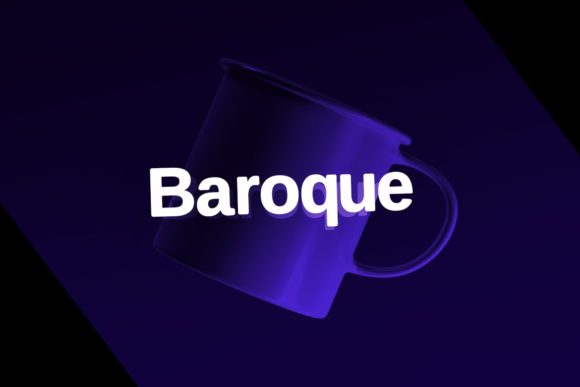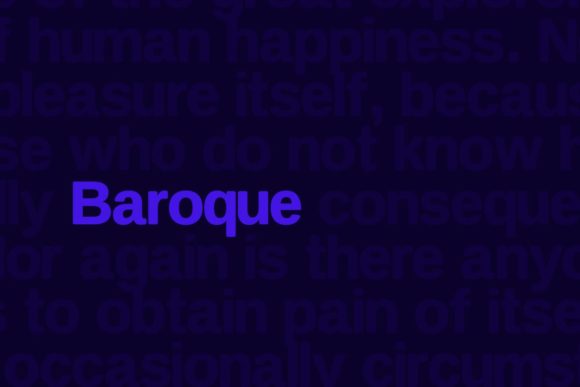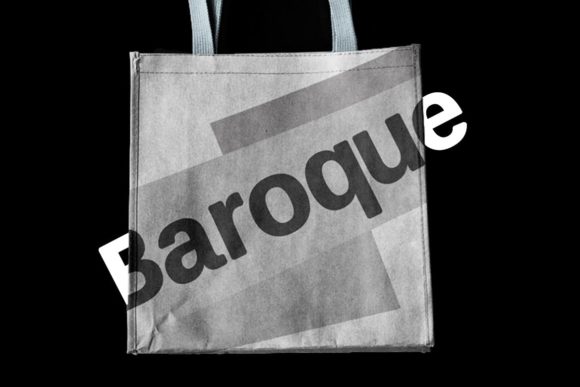
Discover the Modern Coolness of Baroque Font: A Versatile Sans Serif Typeface
In the world of typography, fonts play a crucial role in conveying messages, expressing emotions, and creating a lasting impression. For designers and crafters, selecting the right font can make all the difference in their projects. If you’re looking for a modern sans serif typeface that can elevate your designs, look no further than Baroque Font. In this article, we’ll explore the features, benefits, and inspiration behind Baroque Font, and how it can add a touch of contemporary coolness to your creations.
What is Baroque Font?
Baroque Font is a modern sans serif typeface designed to be versatile and adaptable to a wide range of designs. Its clean lines, simple shapes, and minimalist aesthetic make it an excellent choice for designers seeking a fresh and contemporary look. Baroque Font is perfect for projects that require a clear, readable, and stylish font, from digital media and branding to print materials and crafts.
Key Features of Baroque Font
So, what makes Baroque Font stand out from other sans serif typefaces? Here are some of its key features:
- Clean and Simple Design: Baroque Font boasts a clean and simple design, making it easy to read and understand.
- Versatile and Adaptable: Its modern sans serif design makes it suitable for a wide range of projects, from digital media to print materials.
- Contemporary Coolness: Baroque Font exudes a sense of modernity and coolness, perfect for designs that require a fresh and youthful look.
- High Legibility: The font’s clear and simple design ensures high legibility, even at small sizes.
Inspiration and Design Process
The design of Baroque Font was inspired by the need for a modern sans serif typeface that can keep up with the demands of contemporary design. The design process involved creating a font that is both stylish and functional, with a focus on clean lines, simple shapes, and a minimalist aesthetic. The result is a font that is both versatile and adaptable, making it perfect for a wide range of designs.
Benefits of Using Baroque Font
So, why should you choose Baroque Font for your next project? Here are some benefits of using this modern sans serif typeface:
- Enhance Your Brand’s Visual Identity: Baroque Font can help you create a consistent visual identity for your brand, making it perfect for logos, business cards, and other marketing materials.
- Elevate Your Digital Media: Use Baroque Font to create stunning digital media, such as social media graphics, website headers, and email newsletters.
- Perfect for Crafts and DIY Projects: Baroque Font is also suitable for crafters and DIY enthusiasts, adding a touch of modernity to handmade cards, scrapbooking, and other paper crafts.
Tips for Using Baroque Font
To get the most out of Baroque Font, here are some tips to keep in mind:
- Pair it with Other Fonts: Experiment with pairing Baroque Font with other fonts to create a unique and visually appealing design.
- Use it in Different Sizes: Baroque Font is legible at various sizes, making it perfect for headlines, body text, and captions.
- Experiment with Colors: Try using Baroque Font in different colors to add contrast and visual interest to your design.
In conclusion, Baroque Font is a modern sans serif typeface that offers a unique blend of style, versatility, and contemporary coolness. Its clean design, high legibility, and adaptability make it an excellent choice for designers and crafters looking to elevate their projects. Whether you’re working on a digital media project, a print design, or a craft, Baroque Font is sure to inspire and enhance your creations.